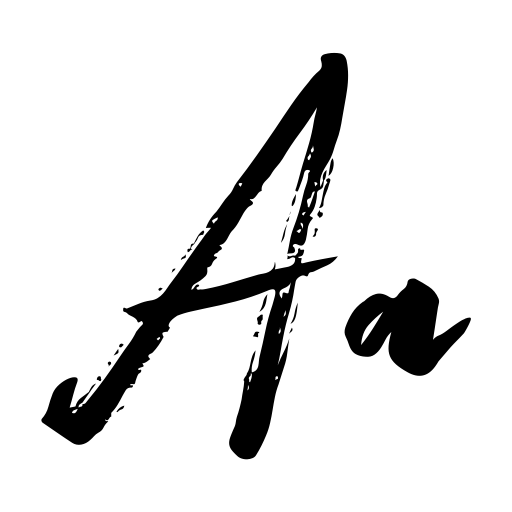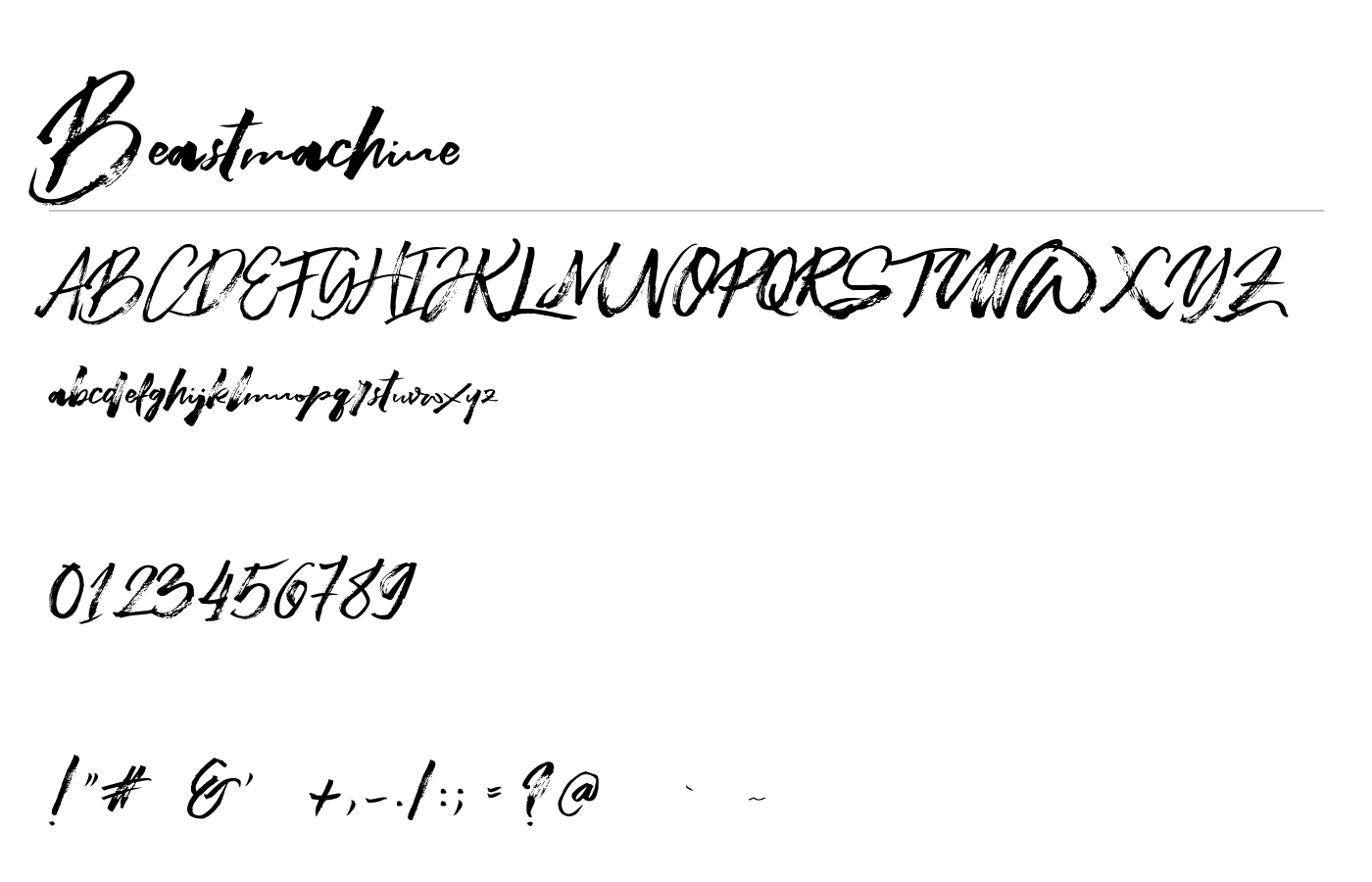
Beastmachine is a bold, expressive script font with a rough, hand-painted texture that gives it a dynamic, energetic feel. Its high contrast strokes and distinctive brush style make it ideal for creating eye-catching headlines, logos, or packaging with a rebellious, artistic vibe. This font works best in creative, edgy designs where a strong, personal touch is desired.
Beastmachine Font
About Beastmachine Font